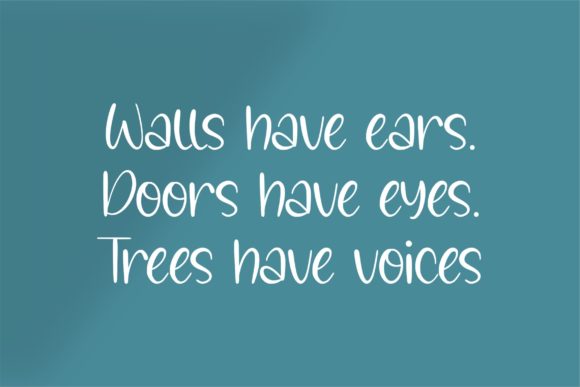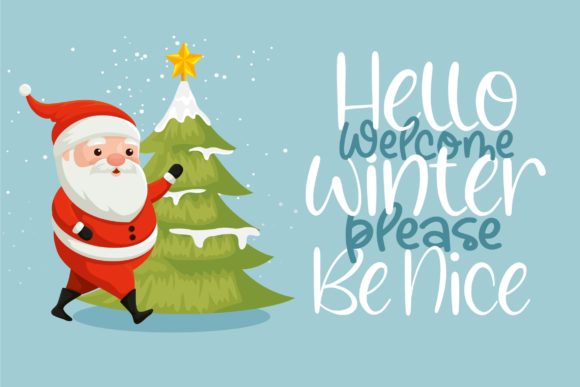
Snowyland Font
db-ku.com - Script & Handwritten -- Snowyland is a friendly, fresh and rich handwritten font. It is ideal for holiday-themed greeting cards and for any crafting project that requires a whimsical touch.